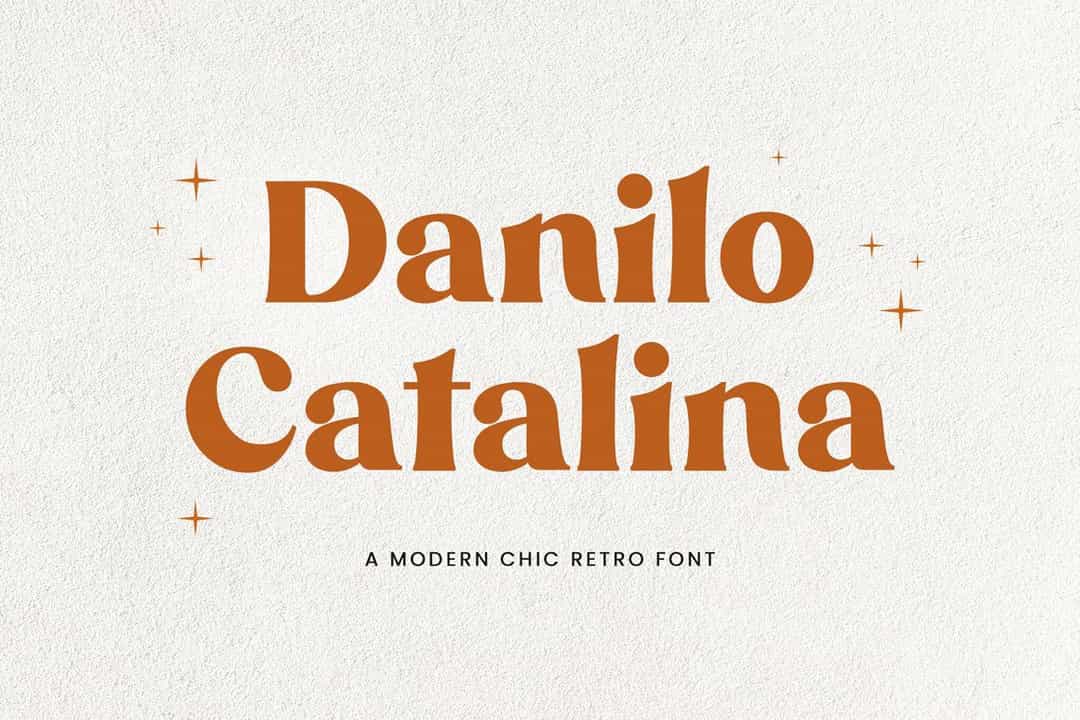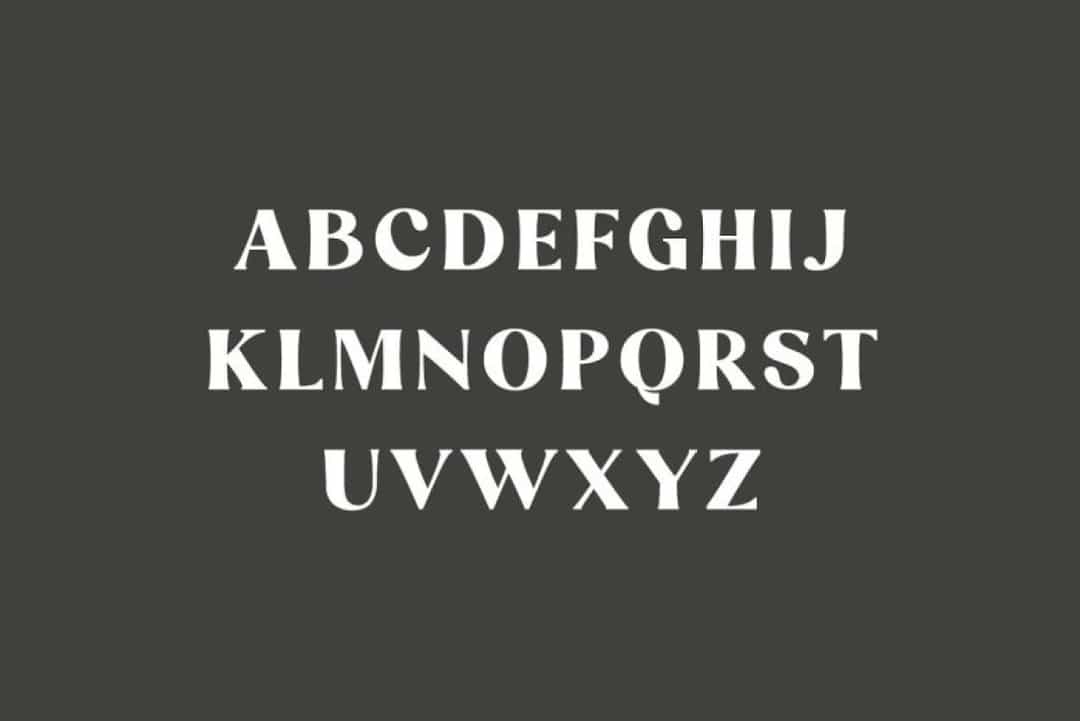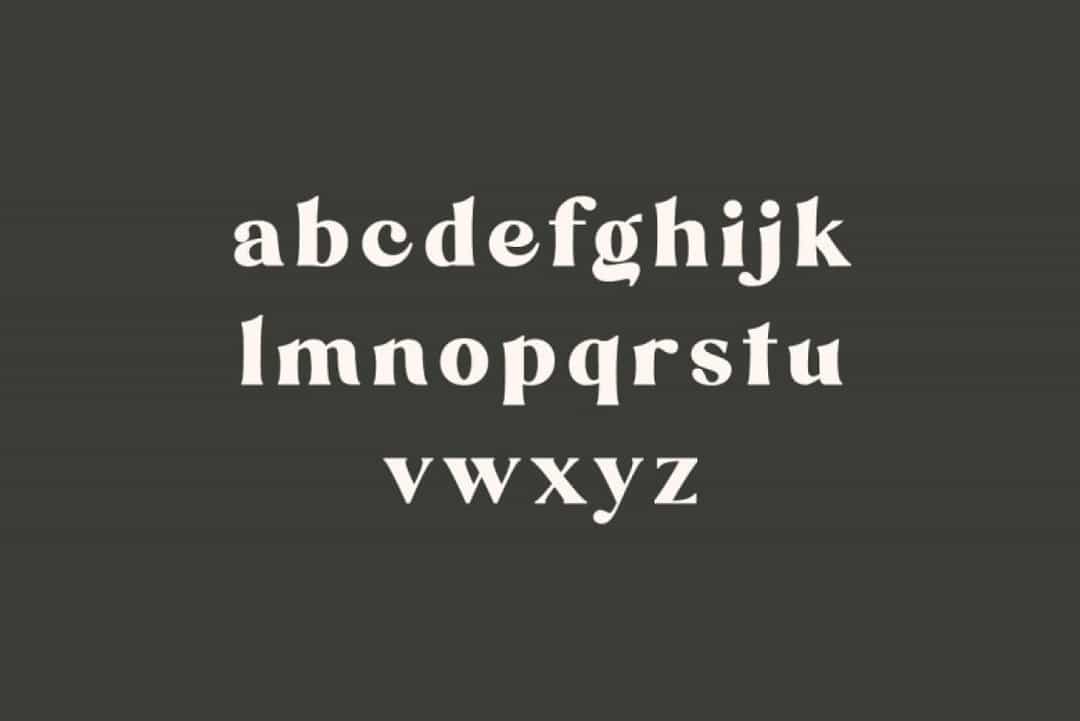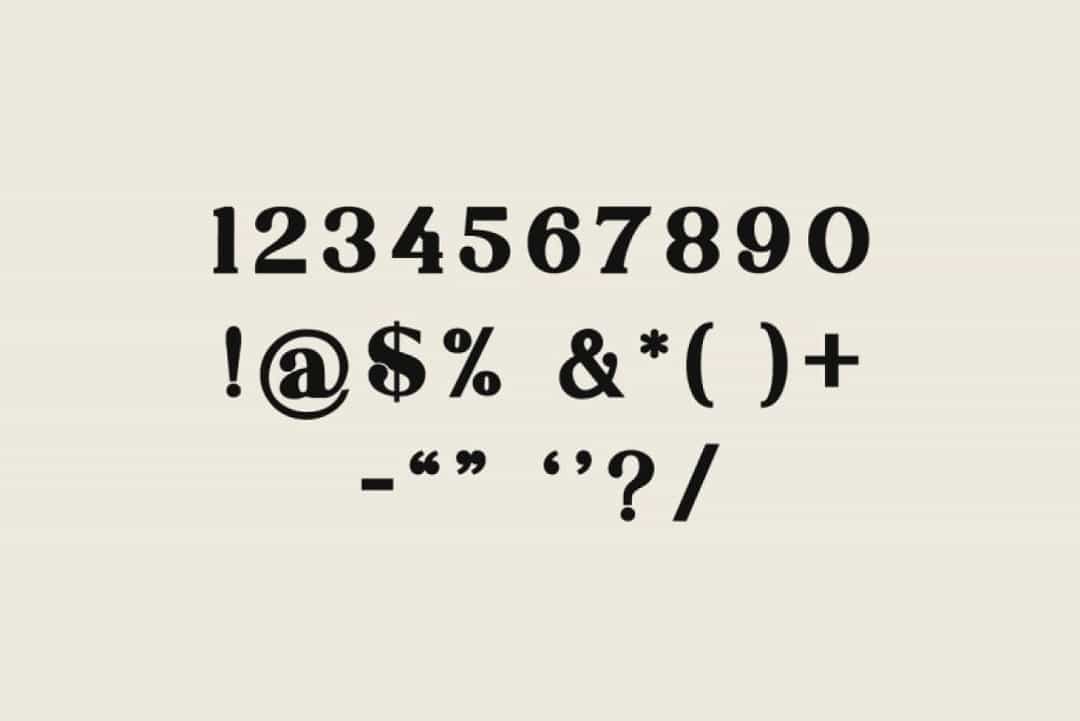
Danilo Catalina is a sophisticated classic serif typeface with elegant, contemporary features that is both sophisticated and classy. This font can be applied to various applications including stationary, signatures, wedding logos, typography quotes for magazines or book covers, website headers as well as clothing/branding packaging designs with both feminine and masculine characteristics.